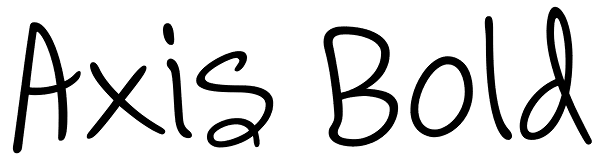
Axis Bold
Created by British designer Peter O'Donnell and inspired by the handwriting style of the late Jimi Hendrix. Named Axis Bold, after one of his most successful record albums, as you might expect from a left handed person, the overall style has the...